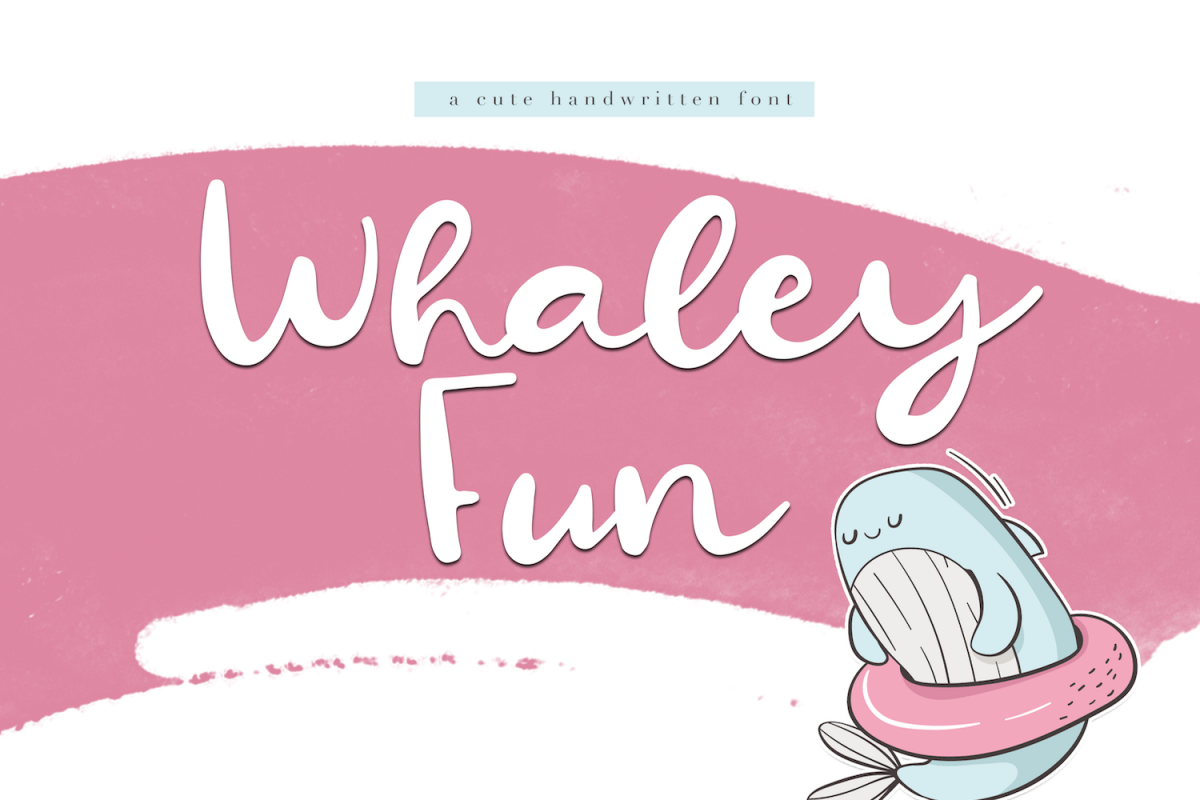
Whaley Fun - A Fun Script Font
Whaley Fun is a cute handwritten script.
This font is perfect for quotes, headings, designs, logos, invitations and more!
It is also great for children's designs!You can type in all caps for a completely different look - it's like getting two fonts in one! :)
This font does not include accent characters.